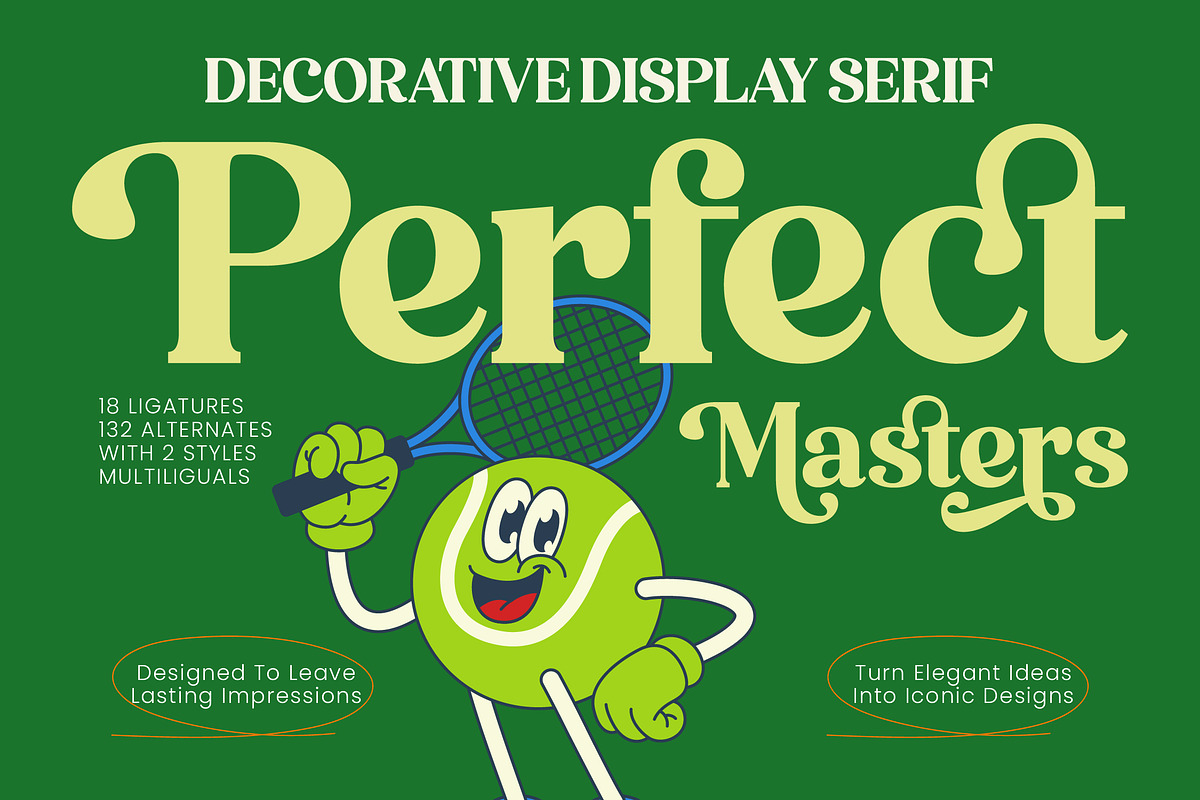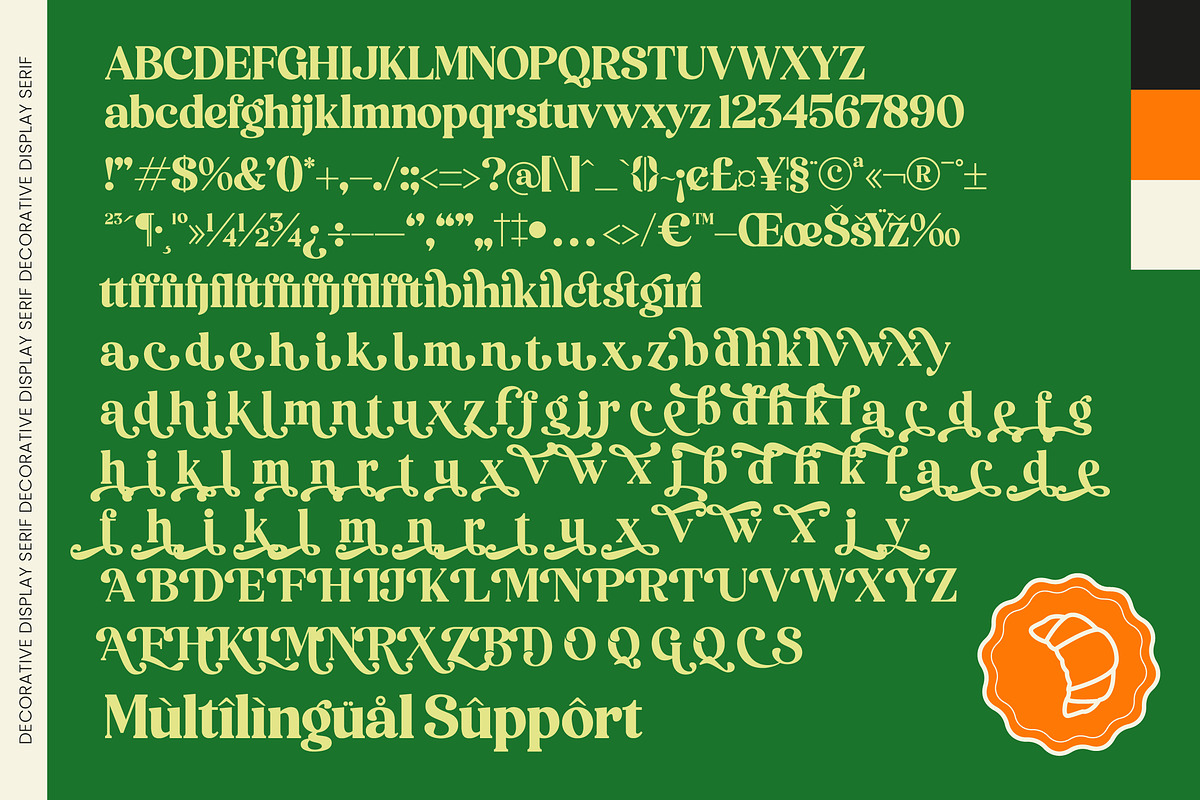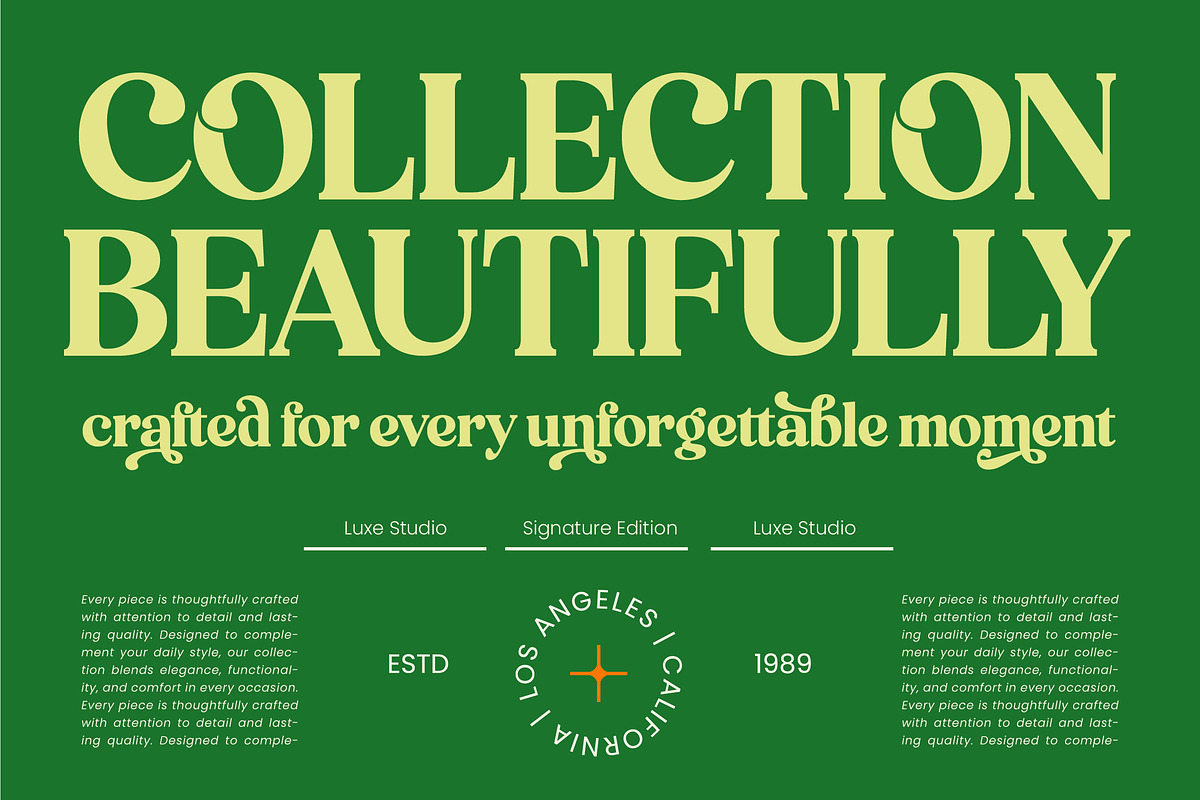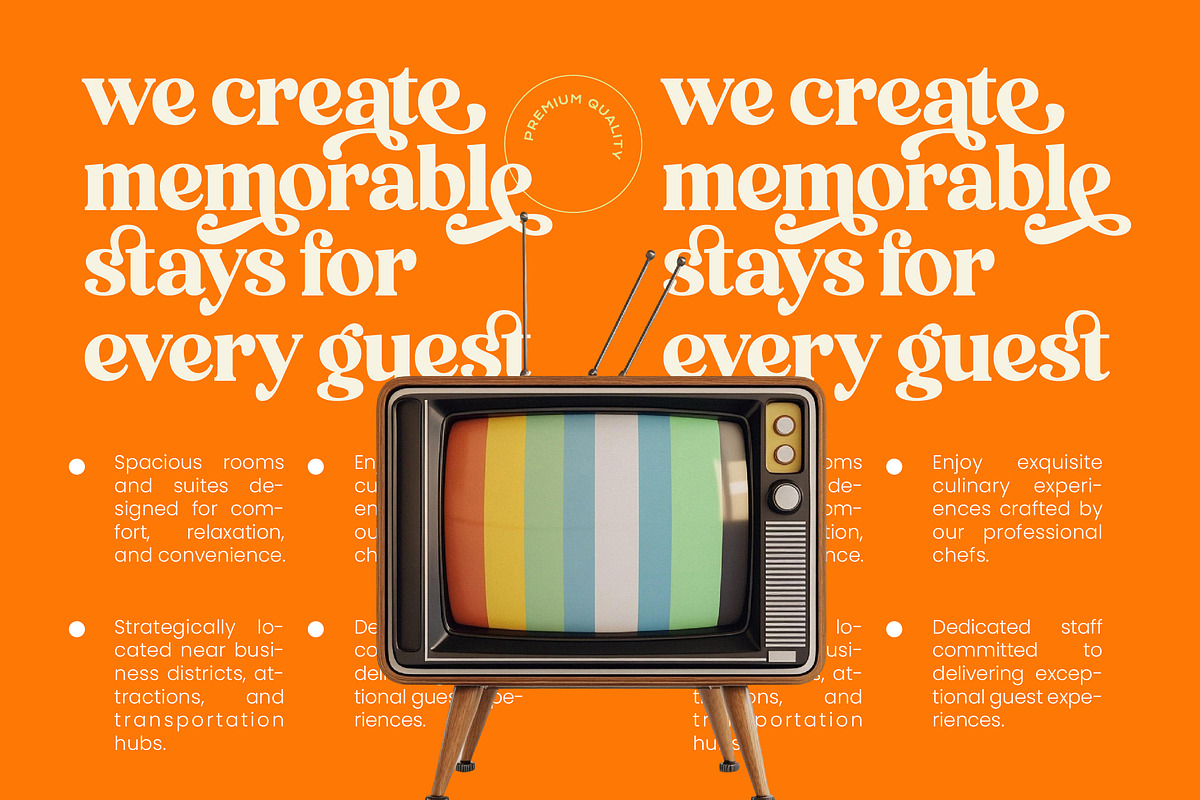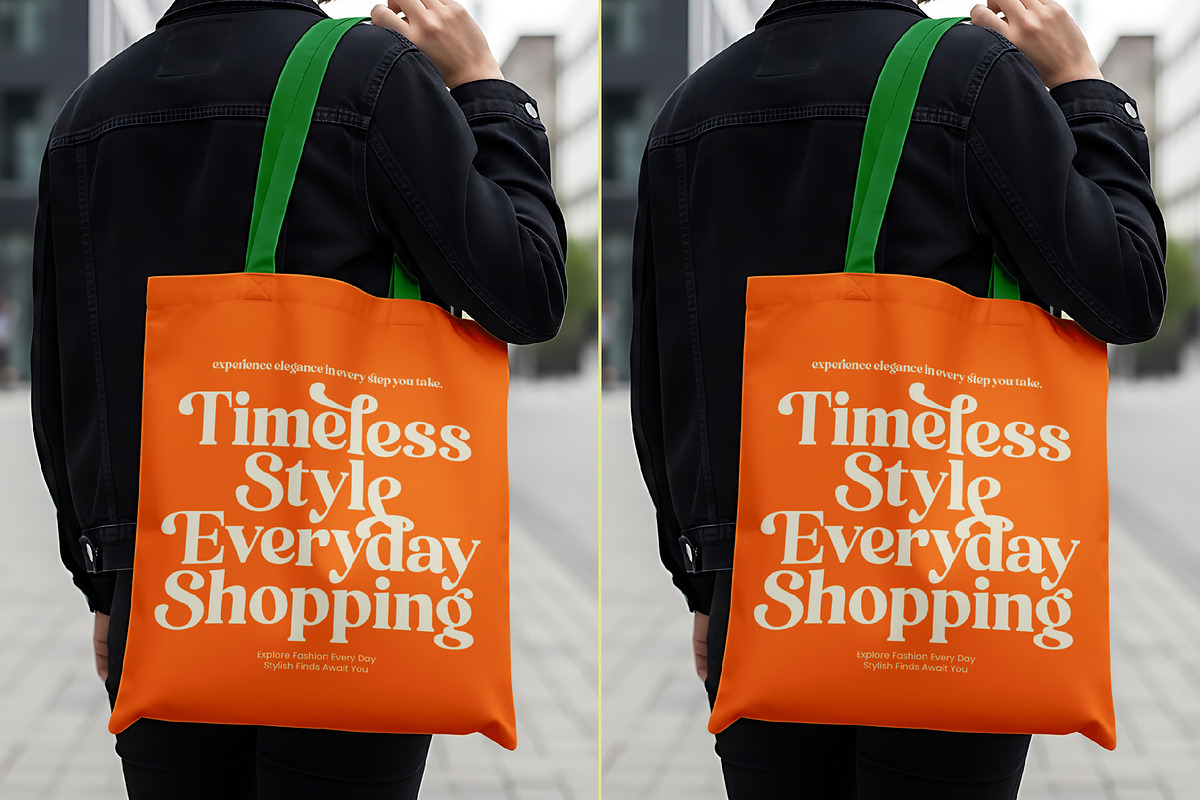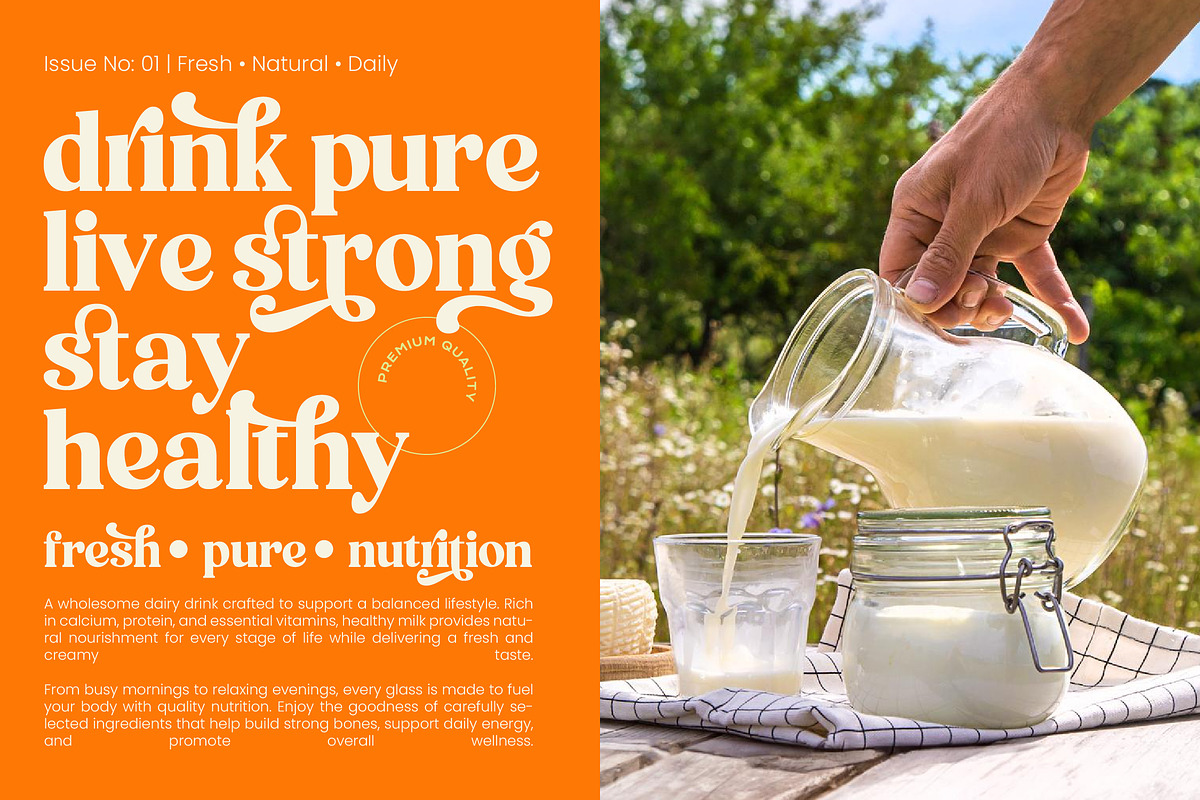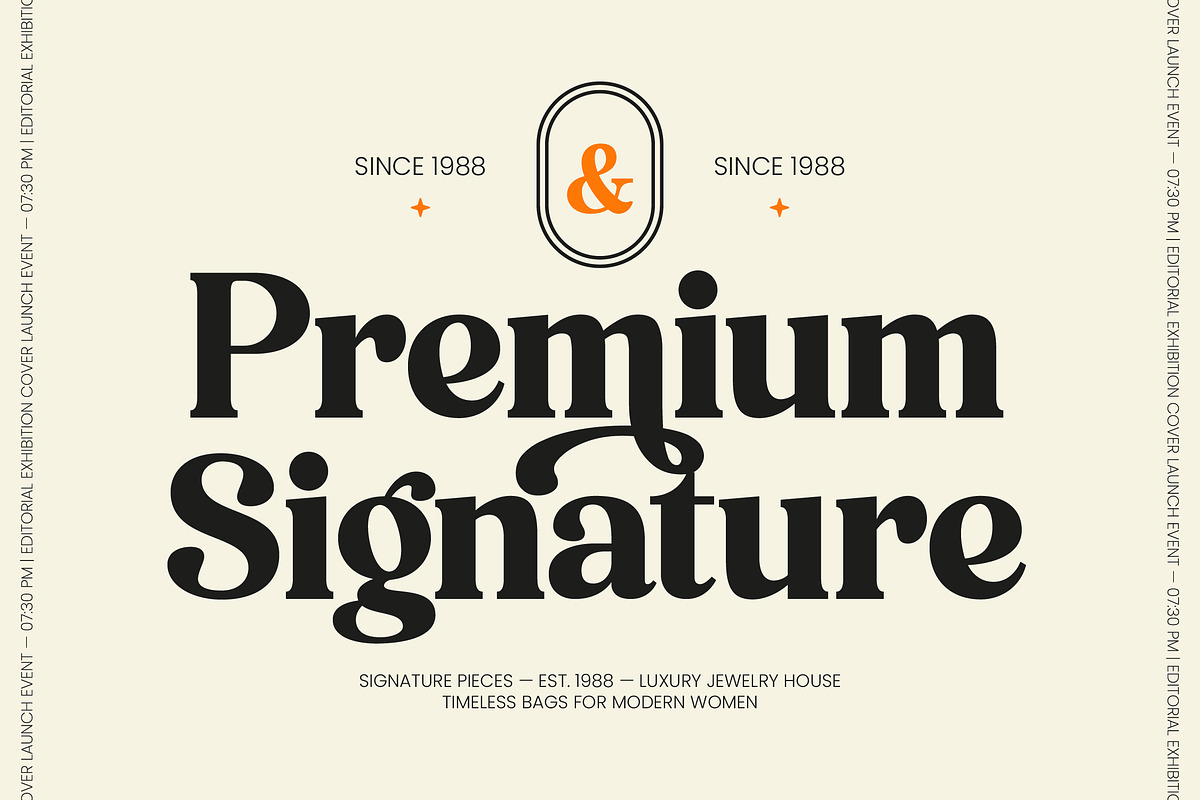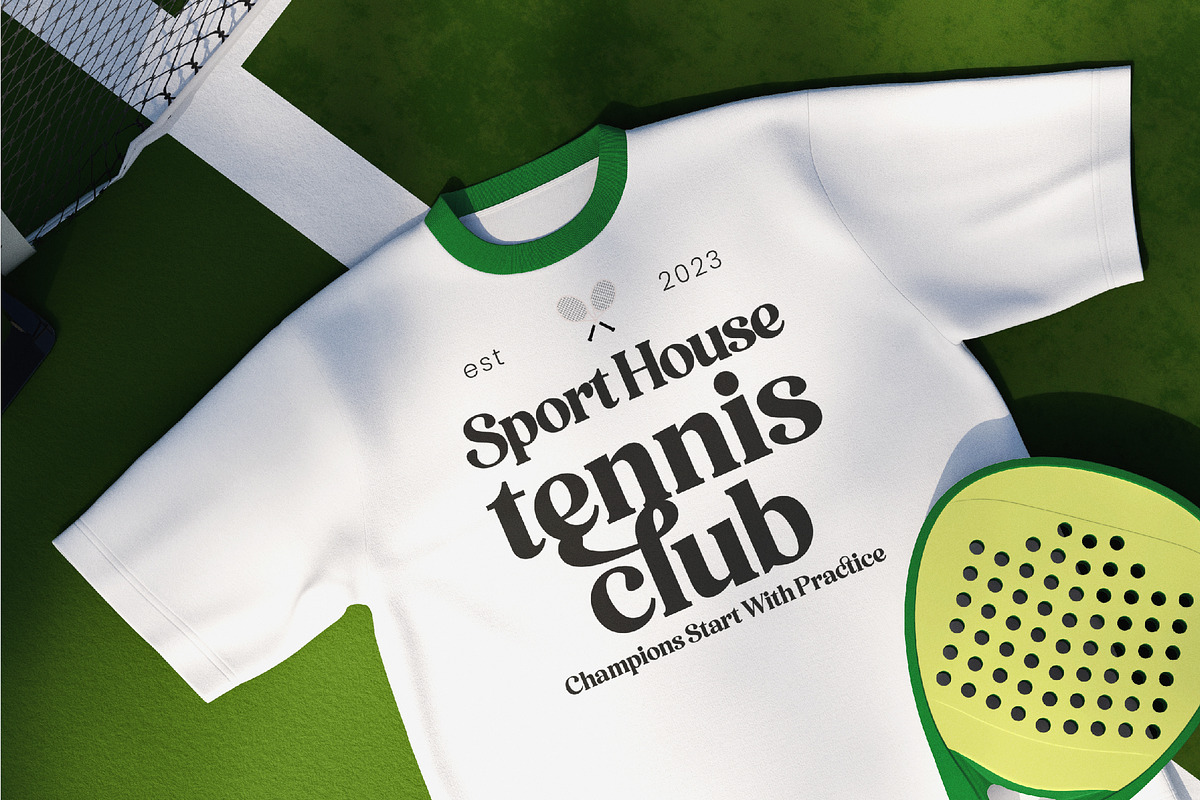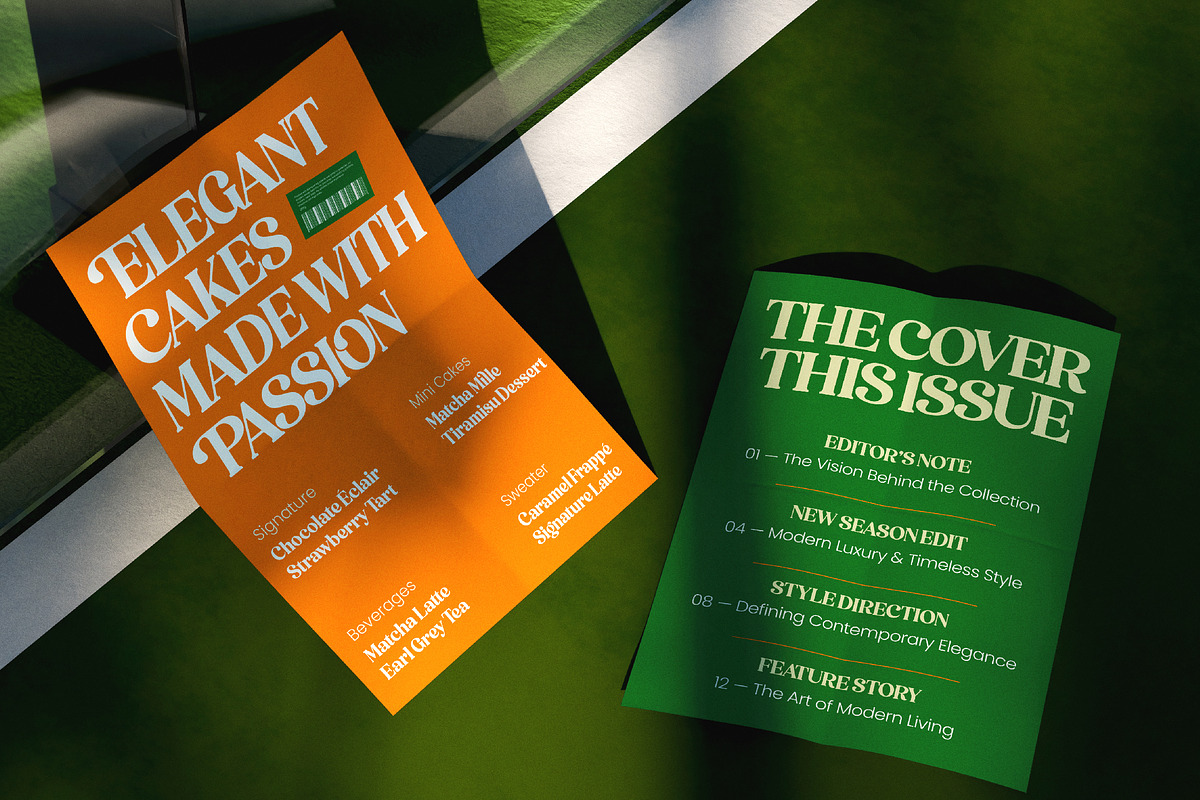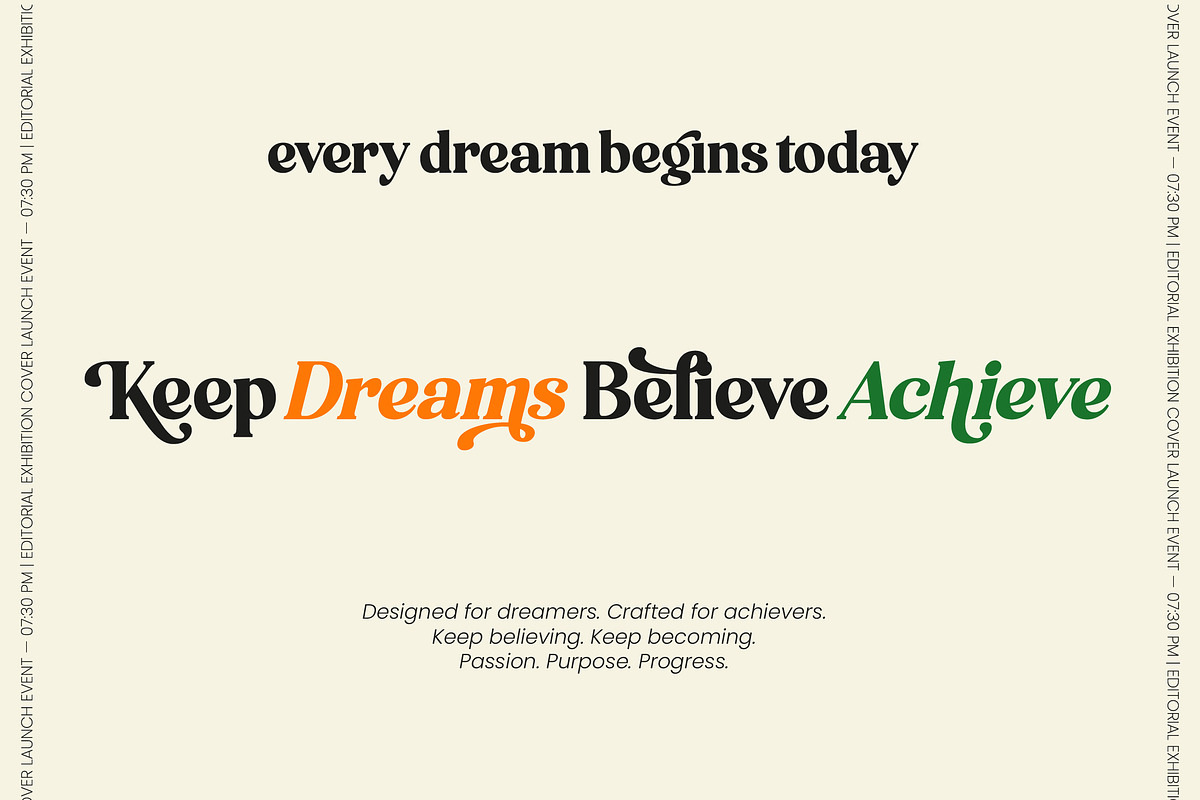
Perfect Masters Decorative Display
Perfect Masters - Decorative Display Serif , Experience the ultimate blend of elegance and precision with Perfect Masters, a font designed to command attention and leave a lasting impression on every viewer. This decorative display serif bridges the gap between classic sophistication and modern creative flair for a truly unique aesthetic.
Inspired by the prestigious atmosphere of elite tennis clubs and the golden era of mid-century editorial layouts, this typeface evokes a sense of nostalgic luxury. Every curve and swash is meticulously crafted to reflect the grace and power of a championship match, bringing a spirited energy to your canvas.
With its striking balance of thick strokes and delicate details, this modern serif display offers an unparalleled luxury typography experience for discerning designers. Its high-contrast serif design ensures a massive branding impact, making it an essential editorial font for those who refuse to blend into the background.
Perfectly aligned with the current modern serif trend, this typeface meets the growing demand for editorial display fonts that feel both timeless and contemporary. Designers seeking character-driven typography will find its expressive alternates ideal for standing out in a crowded and competitive digital landscape.
This versatile typeface is the premier choice for sophisticated logo design and high-end corporate branding projects that require a touch of personality. It brings a touch of class to editorial layouts, luxury packaging, romantic wedding stationery, and avant-garde fashion magazines looking for a signature look.
Enhance your creative workflow with over 132 alternates and 18 unique ligatures that allow for custom-tailored text compositions and artistic flourishes. The font also includes elegant swashes and full multilingual support for international characters, ensuring your message reaches a global audience with effortless style.